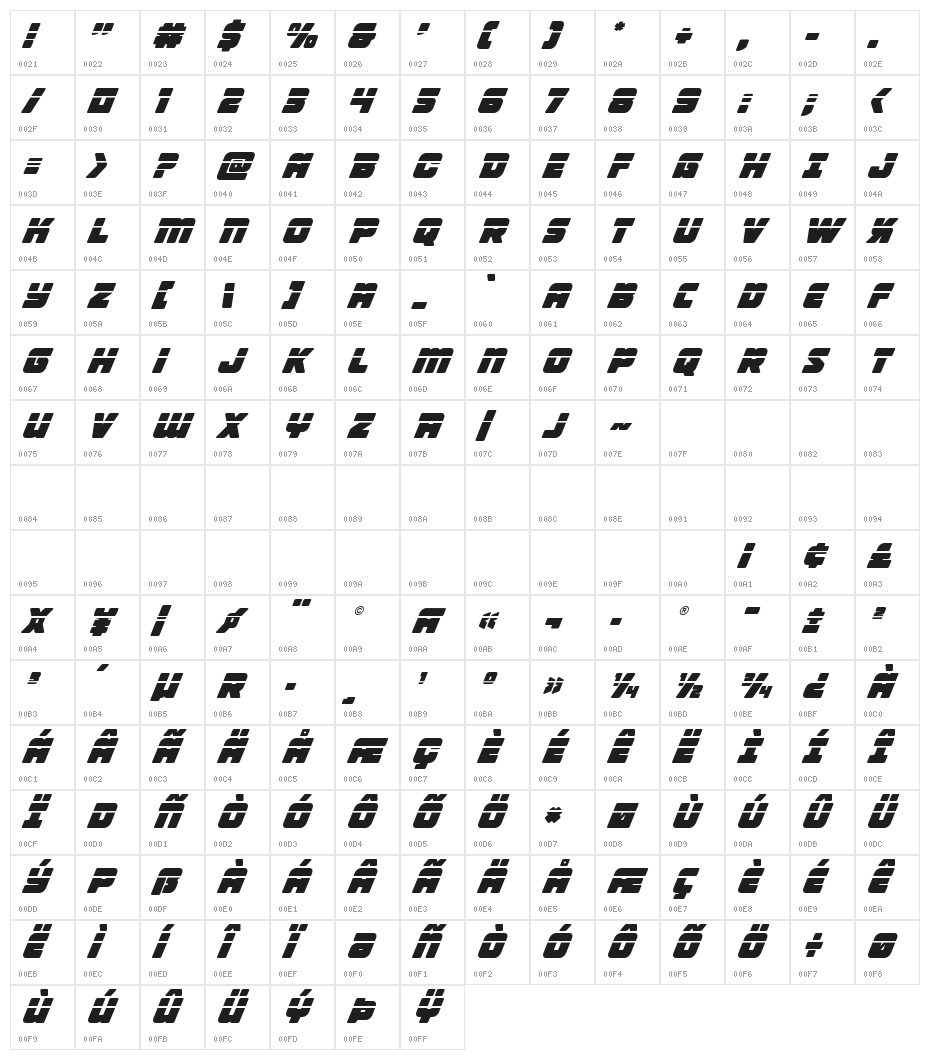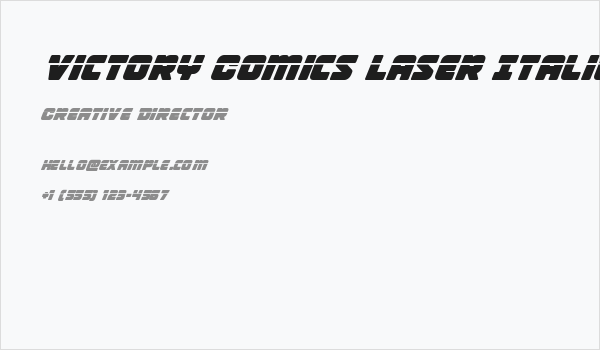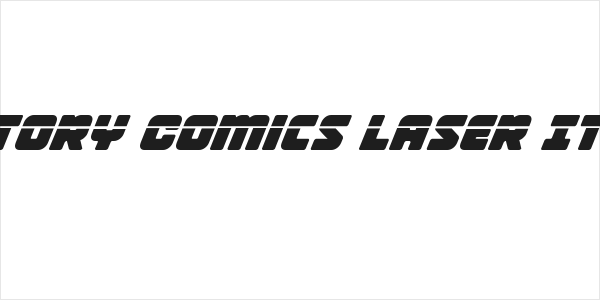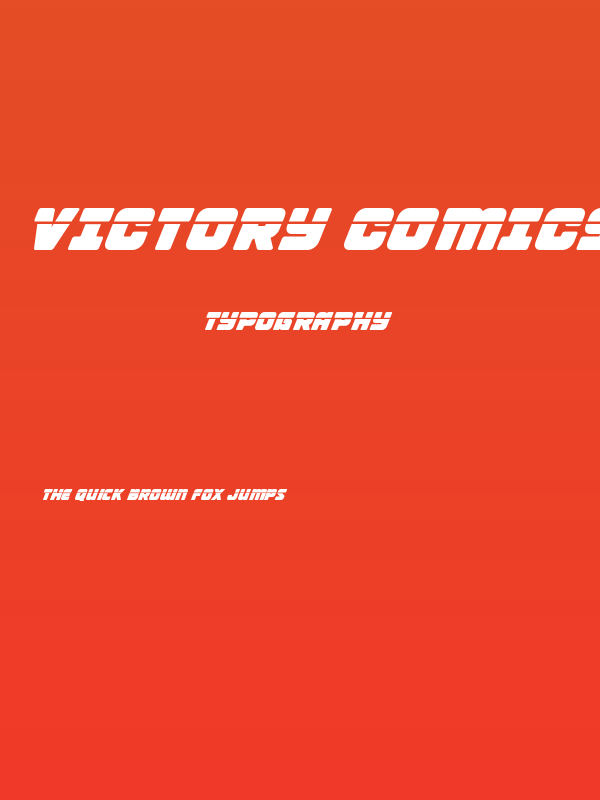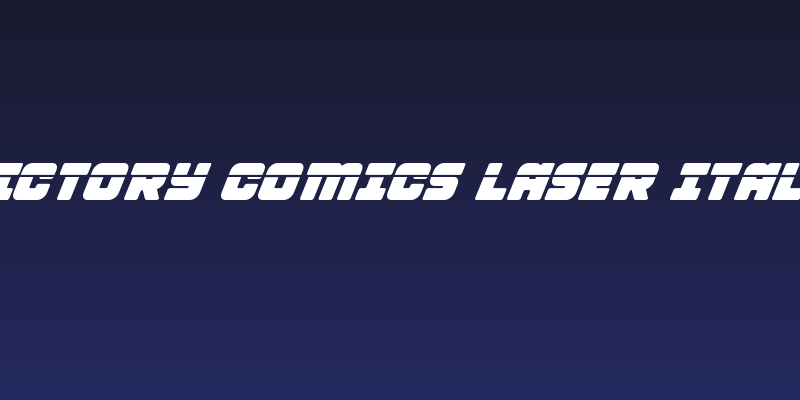
Victory Comics Laser Italic Font
Victory Comics Laser Italic Description
This font features a bold, futuristic design with a strong emphasis on geometric shapes and sharp angles. The characters are italicized, giving a sense of motion and dynamism. The uppercase and lowercase letters maintain a consistent style, with thick strokes and minimal contrast, creating a cohesive and impactful appearance. The numbers and special characters follow the same design principles, ensuring uniformity across all glyphs. This font is well-suited for projects that require a modern and energetic aesthetic.